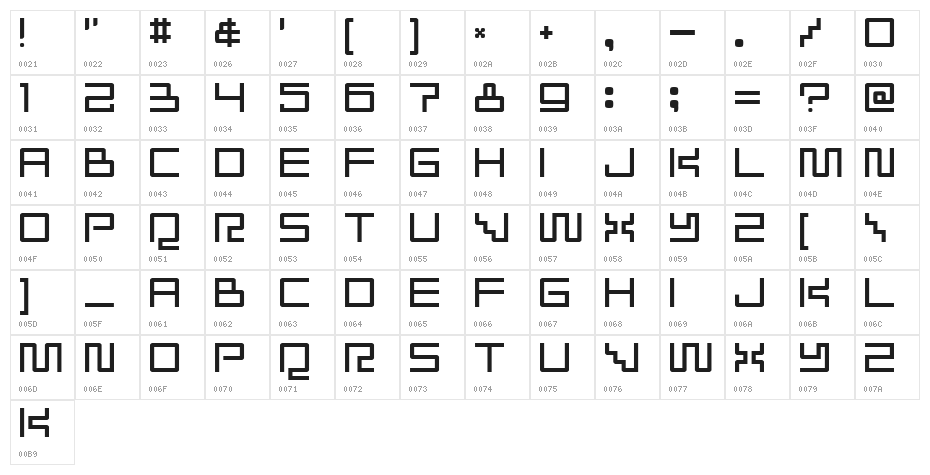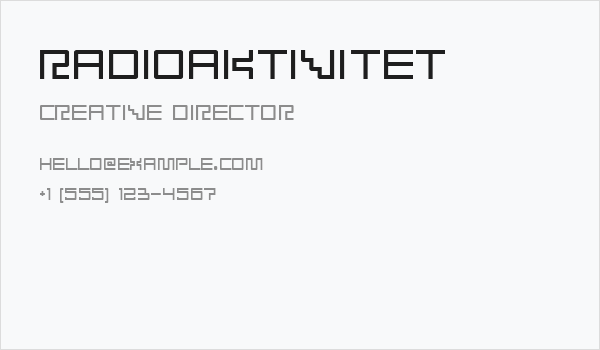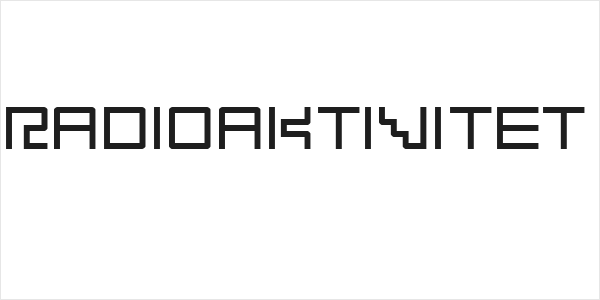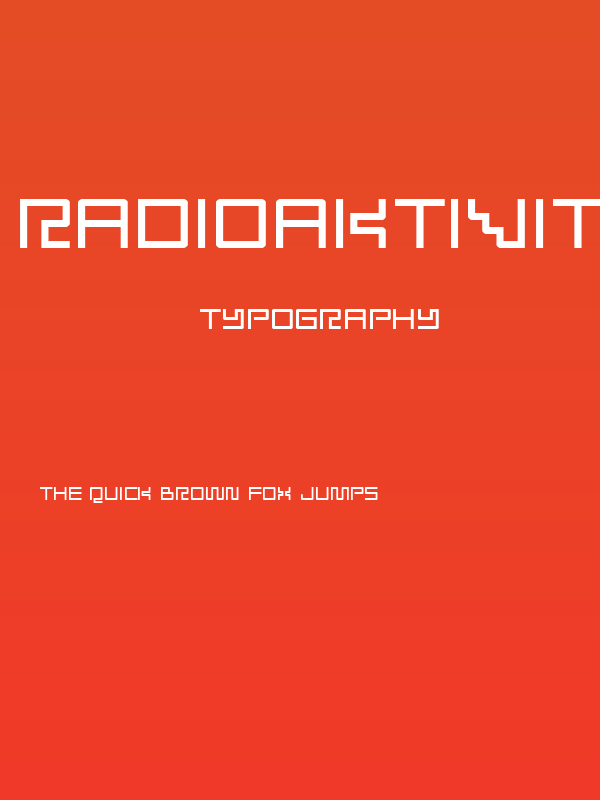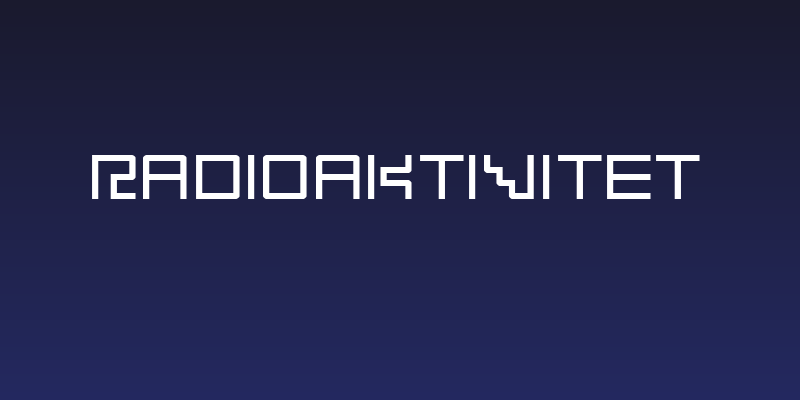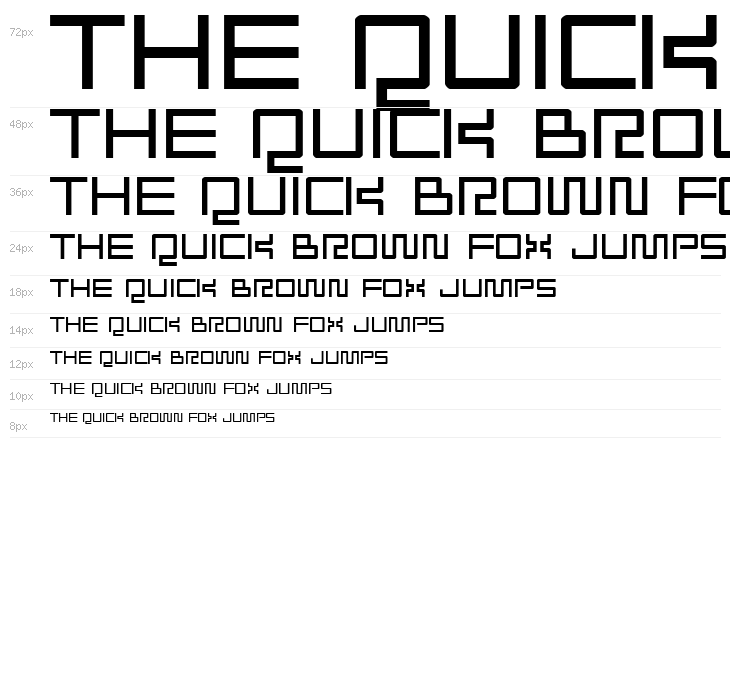
Radioaktivitet Font
Radioaktivitet Description
This font features a geometric and futuristic design, characterized by its blocky and angular letterforms. The uppercase and lowercase letters maintain a consistent height, creating a uniform appearance. The characters are constructed with straight lines and sharp angles, giving it a digital or technological feel. The numbers and special characters follow the same design principles, ensuring cohesion across all glyphs. This font's style is reminiscent of early computer or arcade game typography, making it ideal for projects that require a modern and edgy aesthetic.
| Proposed Projects | Ideal for technology branding, video game titles, sci-fi movie posters, and digital interfaces. |